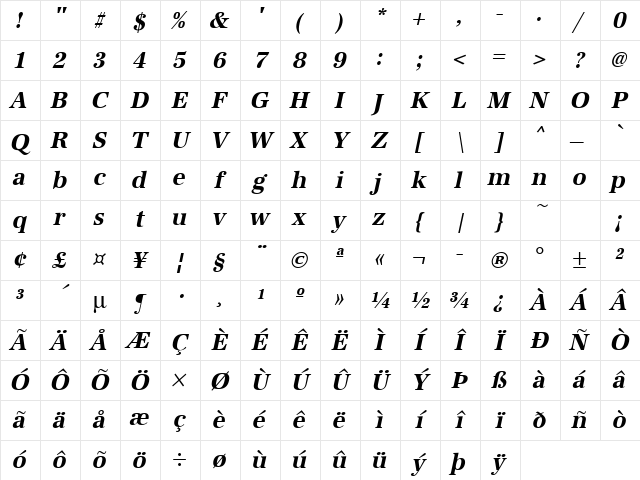
URWAntiquaTNar Bold Oblique
Style: Bold Oblique
URWAntiquaTNar Family
URWAntiquaTNar Bold Oblique
Complete URWAntiquaTNar Bold Oblique glyph index. Displaying only characters natively supported by URWAntiquaTNar Bold Oblique font.
Design Context for URWAntiquaTNar
URWAntiquaTNar is a composed and adaptable typeface that performs quietly and consistently across a wide range of design contexts. The slanted form adds forward momentum and visual energy. Its bold stroke weight gives it real presence on the page.
Pro Tip: Use URWAntiquaTNar for emphasis, pull quotes, and subheadings where its slanted energy can add rhythm to the layout.